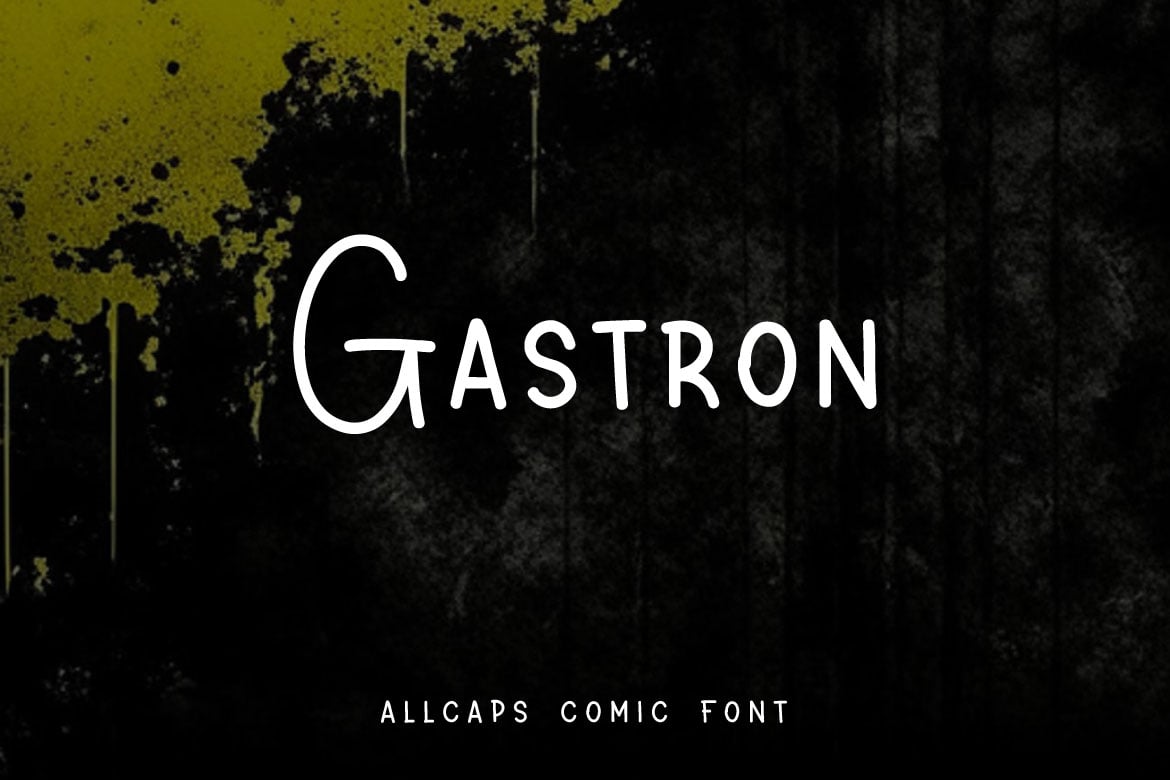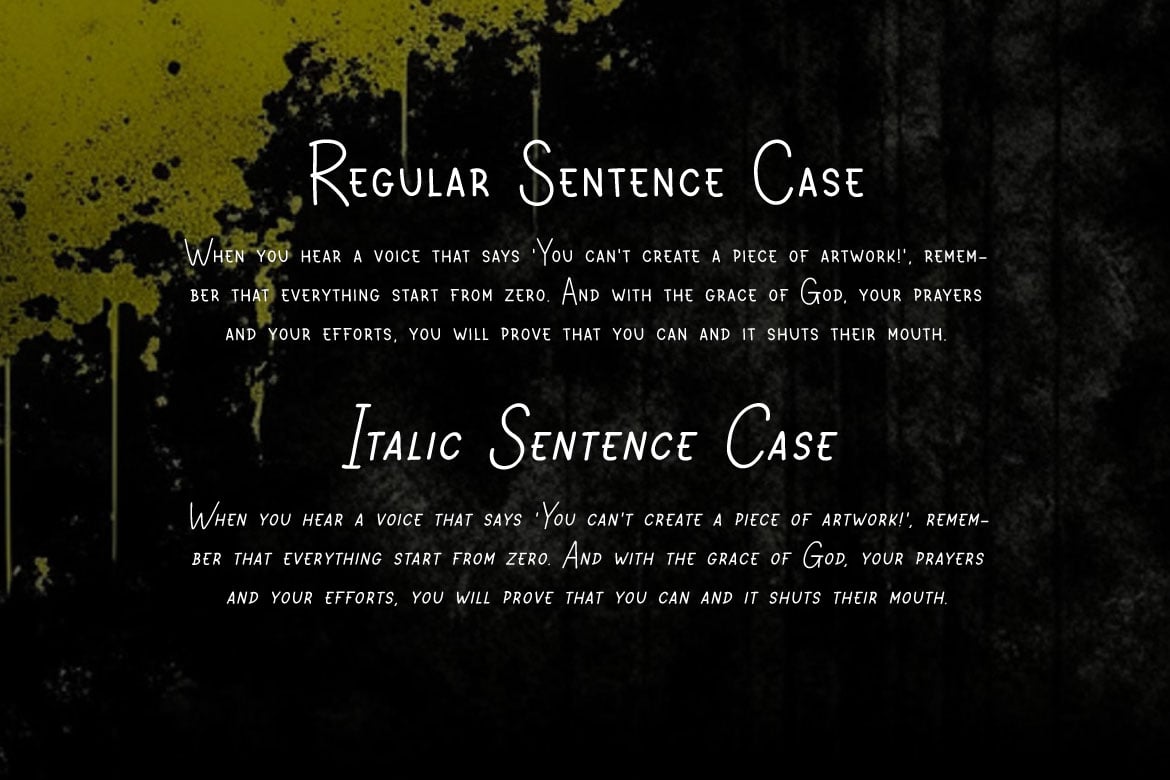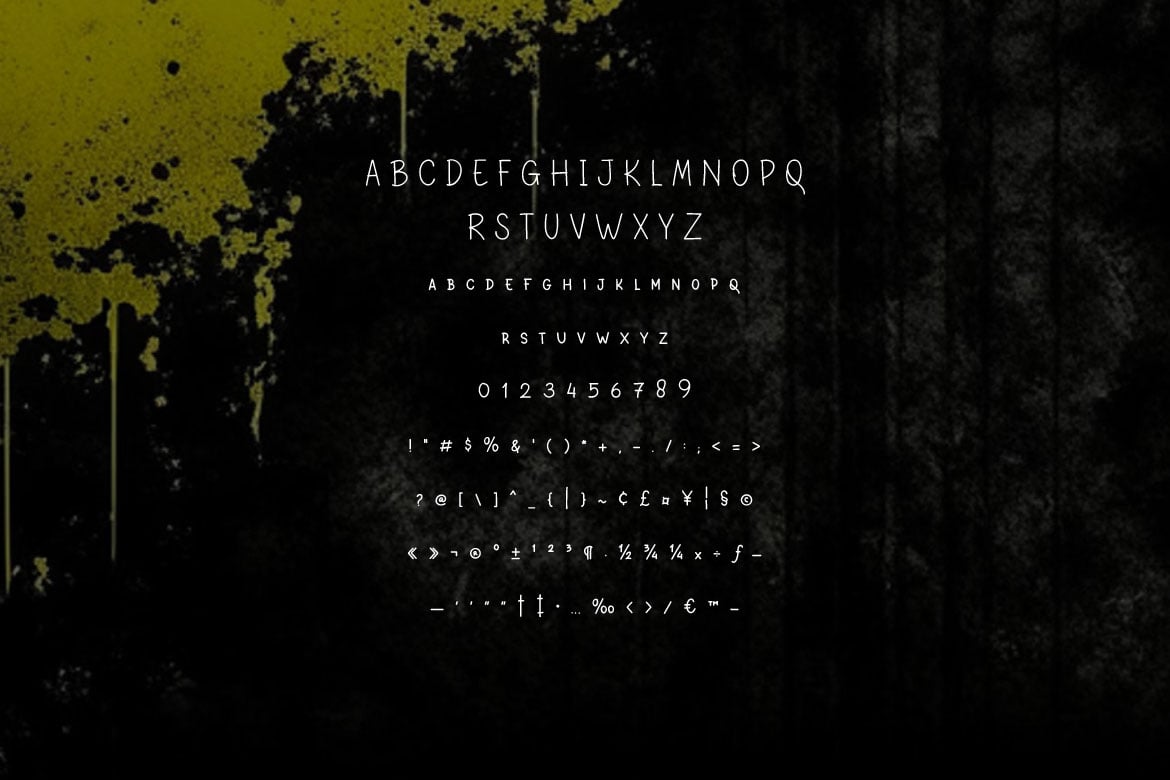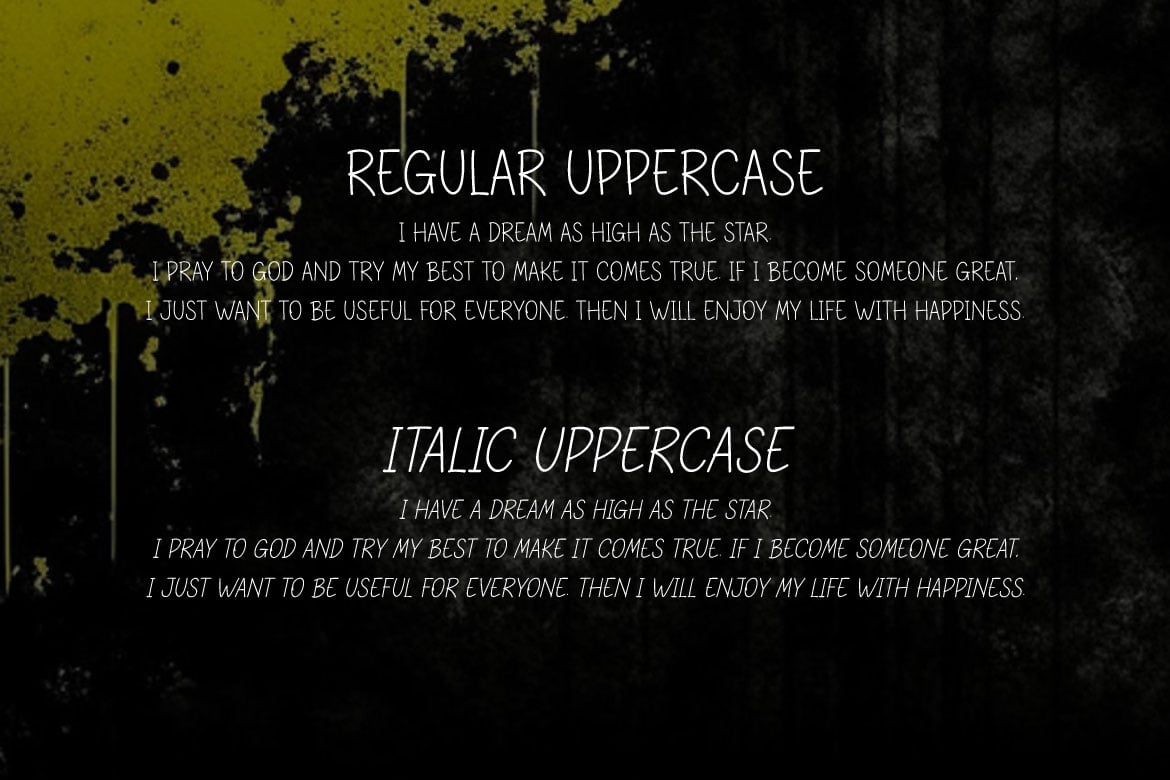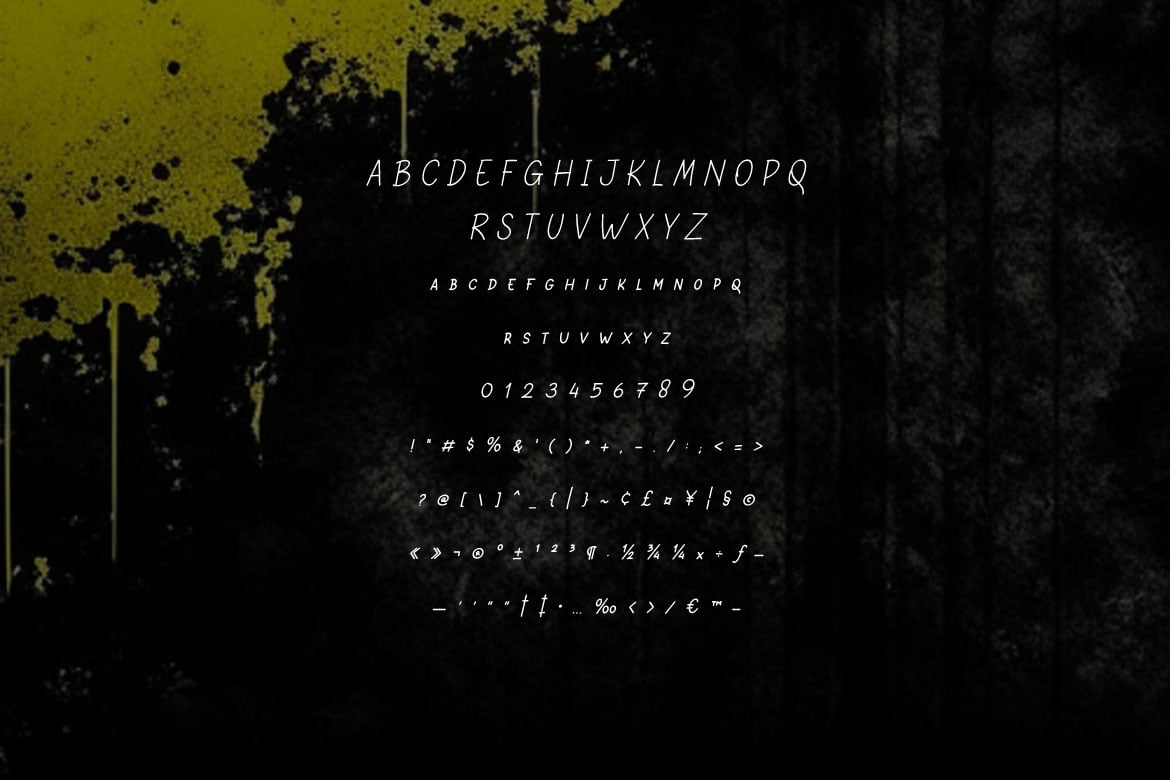
Gastron – Allcaps Comic Font
Unleash your creativity with Gastron, a fun and dynamic all-caps comic font designed to bring a burst of energy and playfulness to your projects. Perfect for comics, children’s books, posters, and more, this font is your go-to choice for any design that needs a vibrant and lively touch.
Gastron stands out with its thin and animated style, making it the perfect choice for any project that needs a touch of humor and excitement. Whether you’re designing for print or digital media, this font will add a lively and energetic feel to your work.